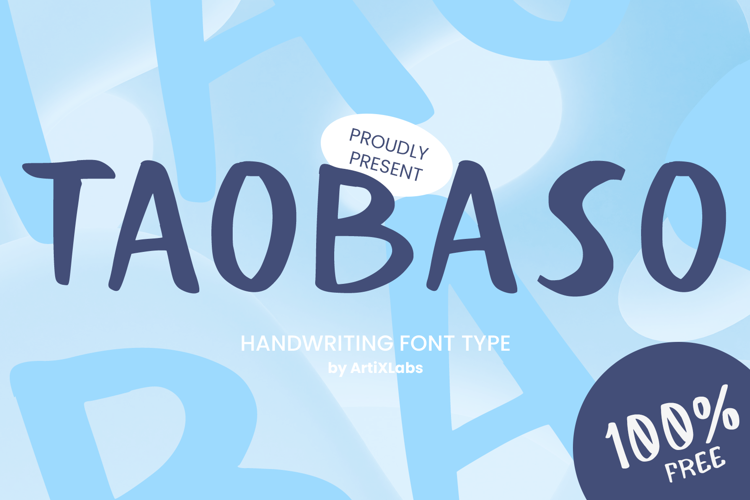
Tao Baso Font
Introducing **Tao Baso - Handwritting Playfull Kids Font**
This Font can be used for any variety of purposes, such as:
Event, Social Media Feed,Flyer, Packaging Products, Logo Type, Branding, T-Shirt Design, Website/Blog, Headline Magazine, Brochures and also can be used for other purpose.
This Font Template contains Versatile,cute, Artsy, Creative, Professional and Unique Concept.